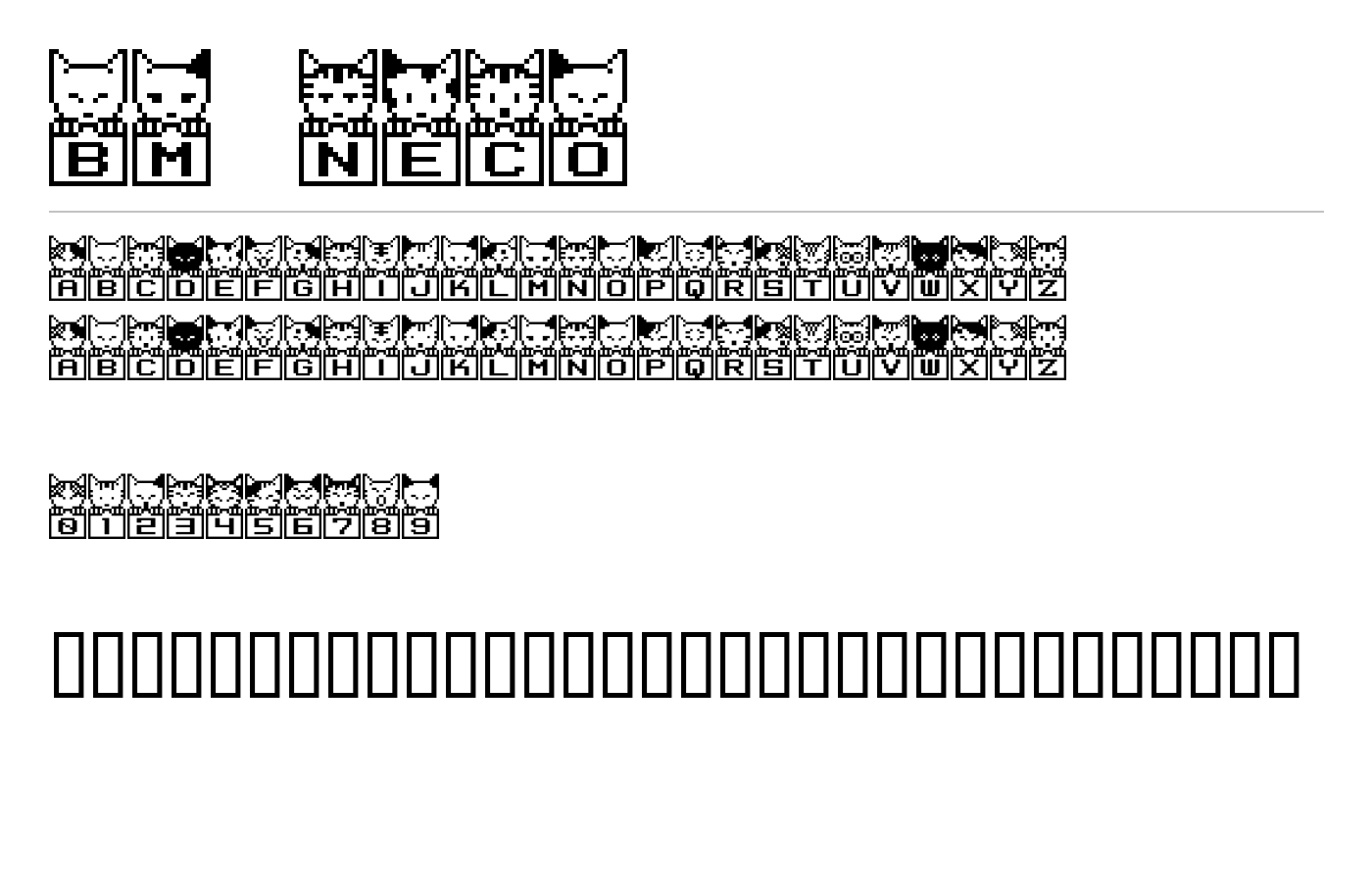
BM Neco is a playful pixel-style font featuring cute cat icons integrated with each letter and number, giving it a charming, handcrafted feel. Its blocky, monospace design and simple black-and-white contrast make it perfect for retro-themed projects, pixel art, and whimsical digital displays. This font works best for game titles, fun branding, and creative posters where a quirky and nostalgic vibe is desired.
BM neco Font
About BM neco Font